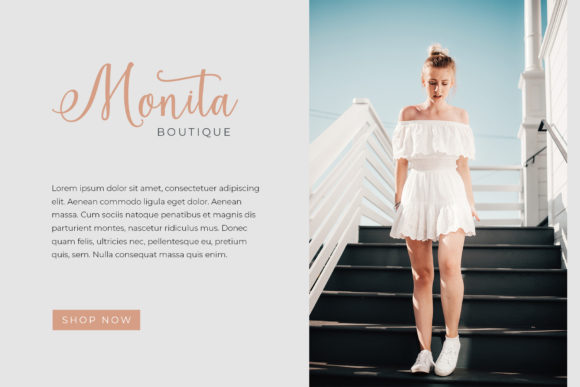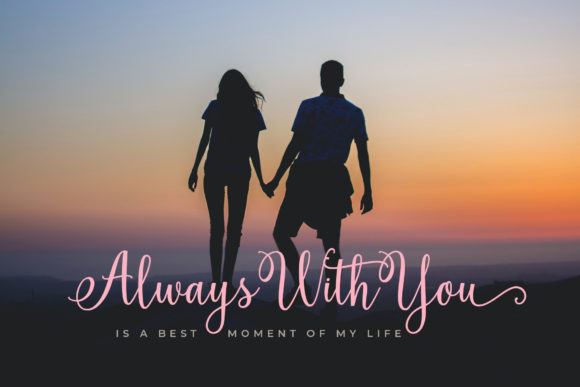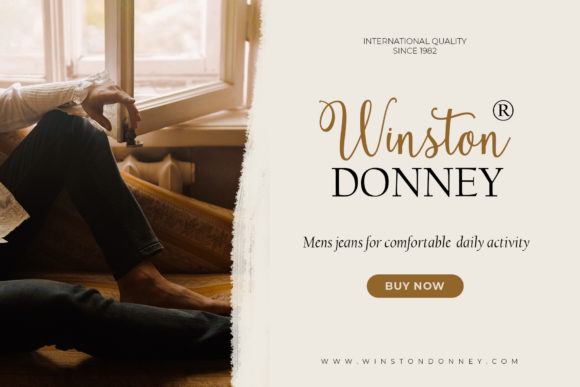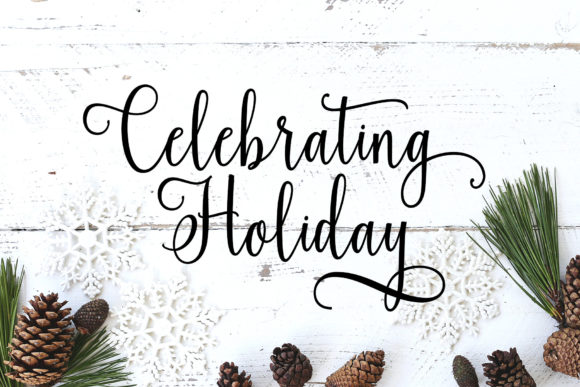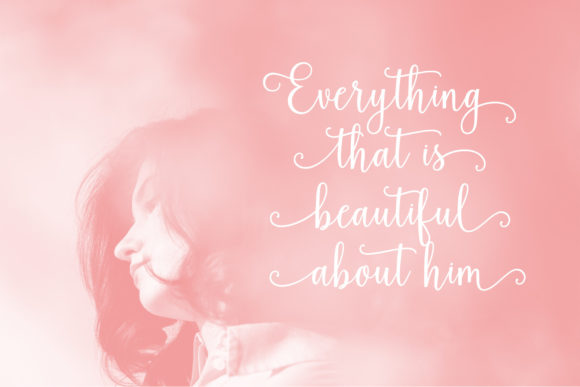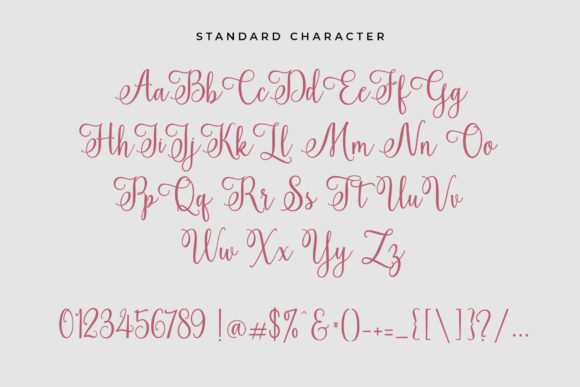
Bring a Touch of Elegance to Your Designs with the Ardista Script Font
Have you ever been scrolling through Pinterest and stumbled upon a beautifully designed wedding invitation that caught your eye? You can’t help but wonder how the designer achieved that perfect blend of style and sophistication. For many creatives, the answer lies in the perfect font – and we’re here to introduce you to the Ardista Script Font, a true showstopper in the world of typography.
With its thin, flowing lines and elegant flair, the Ardista Script Font is the perfect choice for creating gorgeous stationery, eye-catching social media posts, and even wedding invitations that will leave a lasting impression. As a PUA encoded font, you’ll have access to all glyphs and swashes, making it incredibly easy to customize and add your own personal touch. Whether you’re a seasoned designer or just starting out, the Ardista Script Font is an invaluable addition to your toolkit.
- Unique Characteristics: Elegant, cursive script with a touch of sophistication and refinement, ideal for creative projects, invitations, and luxury branding
Ardista Script Font Review
I’ve had the chance to work with Ardista Script Font on a recent design project, and I must say it’s a beautiful addition to any typography arsenal. ✨ The flowing curves and elegant lines evoke a sense of sophistication and refinement, making it perfect for luxury brands or high-end marketing materials.
One of the things that works well with Ardista Script is its versatility. ✨ It can be used in a variety of contexts, from headings and titles to body text and even logos. The font also comes in a range of weights, allowing designers to add depth and nuance to their designs.
However, I did encounter a few limitations with Ardista Script. ⚠️ For one, it can be a bit challenging to read at small font sizes, especially in digital applications. Additionally, the font may not be the best choice for projects that require a lot of text, as the flowing lines can sometimes make it difficult to distinguish between individual words.
- Beautiful, elegant design
- Highly versatile
- Range of weights available
- Not ideal for small font sizes or large blocks of text
- May be challenging to read in digital applications
Overall, I’m impressed with Ardista Script Font, and I think it’s a great addition to any designer’s toolkit. While it may have some limitations, its beauty and versatility make it a worthwhile investment for designers looking to elevate their typography game.
Take advantage of the font’s elegant and sophisticated feel to create designs that evoke a sense of luxury and refinement.